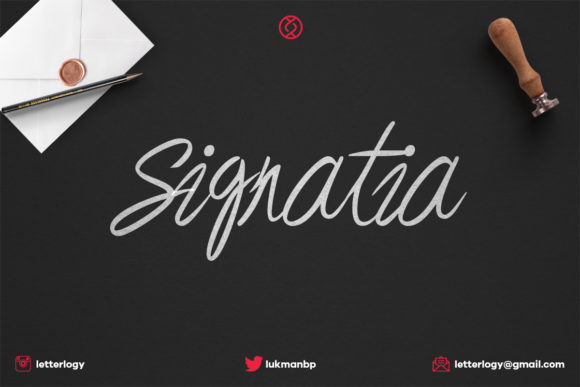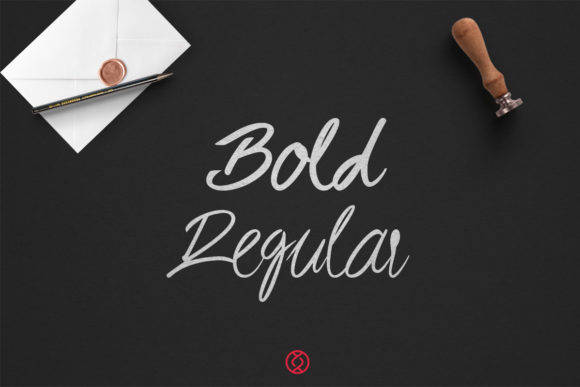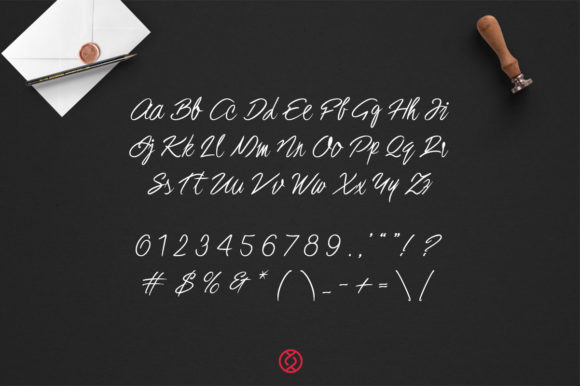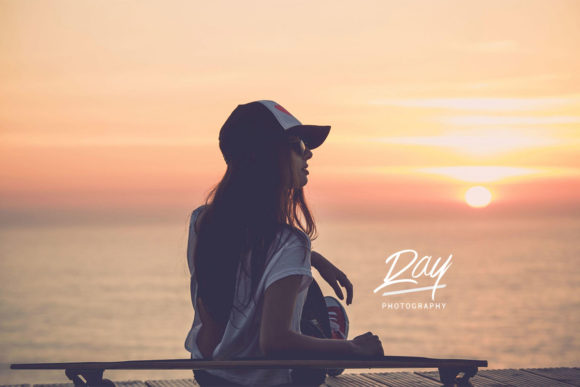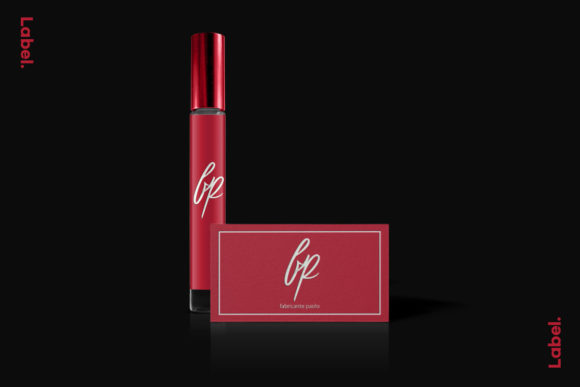
Signata Font
Signata is a typical signature typeface with gorgeous characters. It comes in two distinct versions, allowing you to create a wide range of design results!